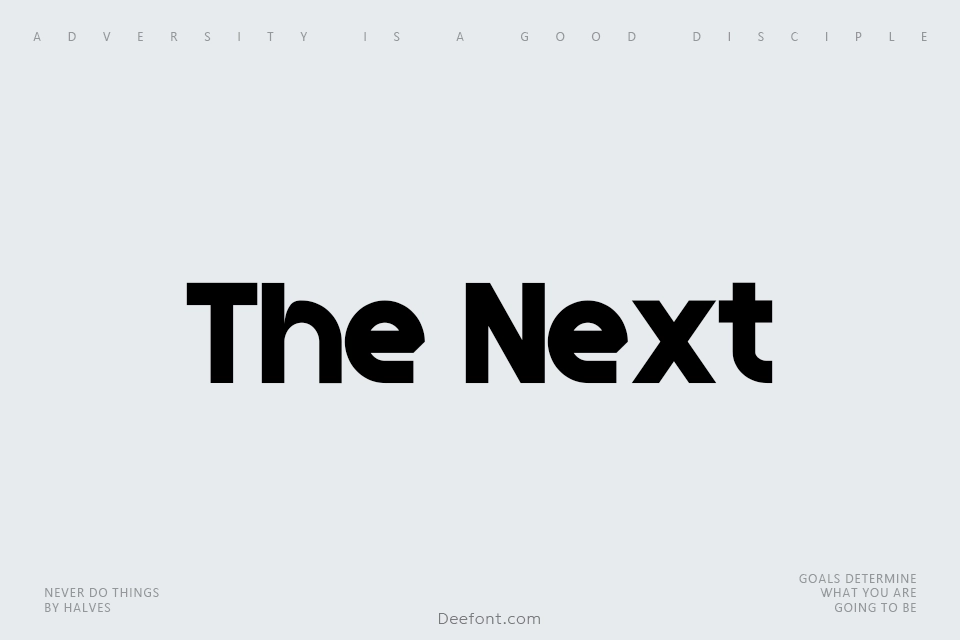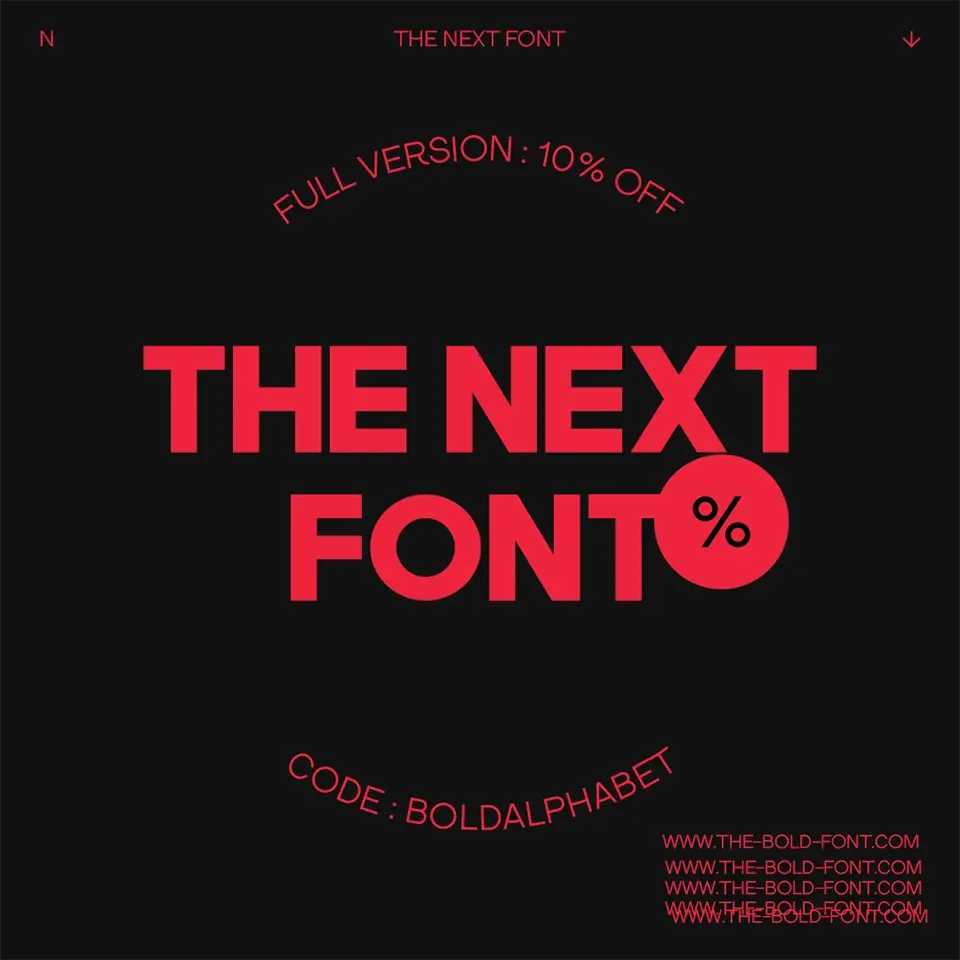
The Next Font
The Next Font is a high-quality bold sans serif typeface designed for maximum impact and versatility. Created with careful attention to modern design aesthetics, this font features clean lines and strong character strokes, making it perfect for logo design, social media graphics, movie titles, book covers, and both short and long-form text applications. The typeface delivers professional-grade typography suitable for creative professionals and designers seeking distinctive visual communication across various mediums.
Designed by:Sven PelsWebsite